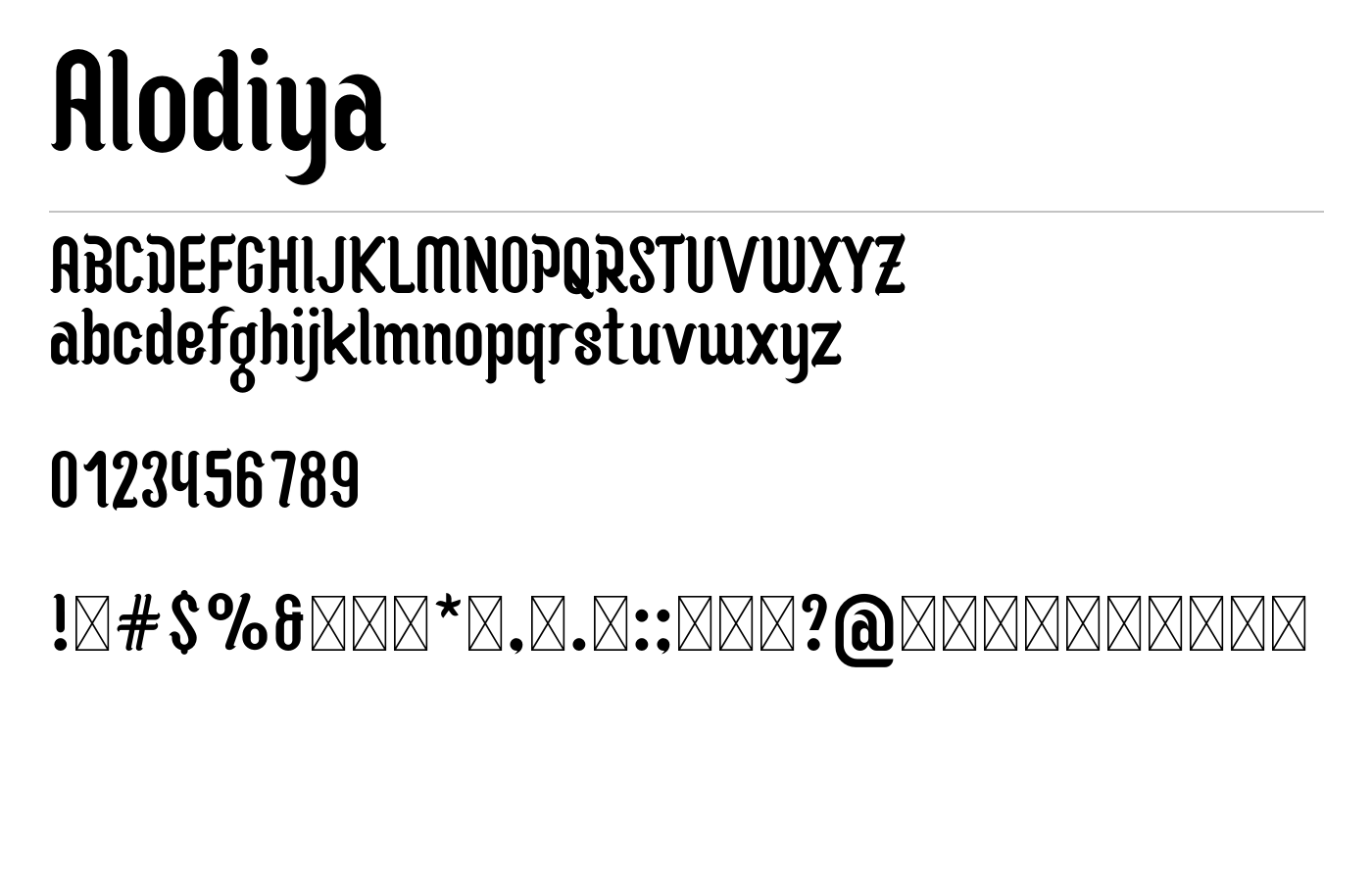
Alodiya is a distinctive serif font with a vintage flair, featuring tall, narrow letterforms and smooth, bracketed serifs that lend it a refined yet bold presence. Its medium contrast strokes and unique character shapes create an elegant, sophisticated feel, making it ideal for branding, headlines, and editorial use where a touch of classic style with modern clarity is desired. This font works well for fashion, luxury packaging, and any design that aims to convey timeless elegance with a contemporary twist.
Alodiya Font
About Alodiya Font